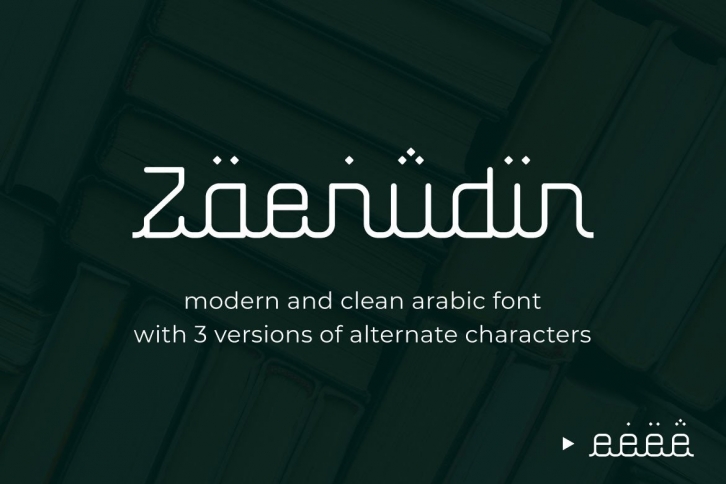
ZAENUDIN is an Arabic display font that brings modern and elegant looks.
The beauty of the font is perfectly suited for Ramadan greeting cards, book titles, headlines of the news, banner, flyer, or other Islamic artworks. It also can be used in large-scale work.